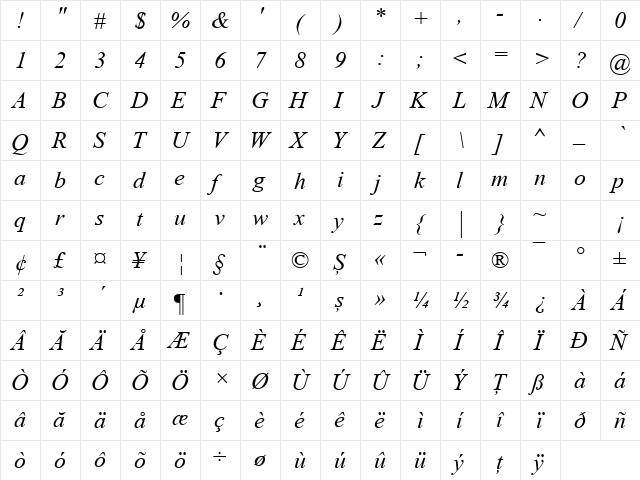
Turn W Italic
Design Context for Turn W Typeface
Turn W offers clean, dependable letterforms without strong stylistic allegiance, making it a practical choice for designers who need flexibility. Its italic angle brings a sense of urgency and motion to the letterforms.
Pro Tip: Try Turn W for annotation and caption copy alongside an upright companion — the contrast in angle creates a dynamic but ordered typographic system.